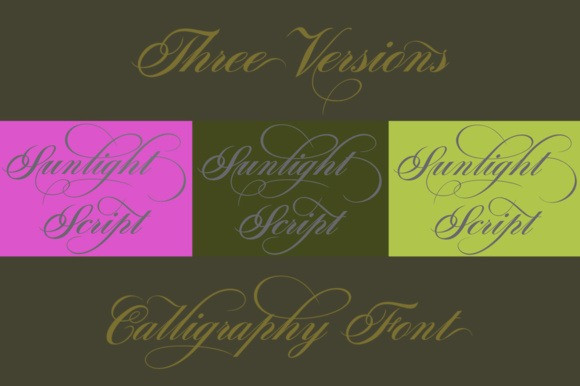
Sunlight Script Font
Sunlight Script Font is a calligraphy script font that comes with beautiful alternative characters. Sunlight was designed to bring style and elegance to your design. Its classic style is perfect to apply in various designs such as invitations, labels, menus, logos, fashion, make up and much more!